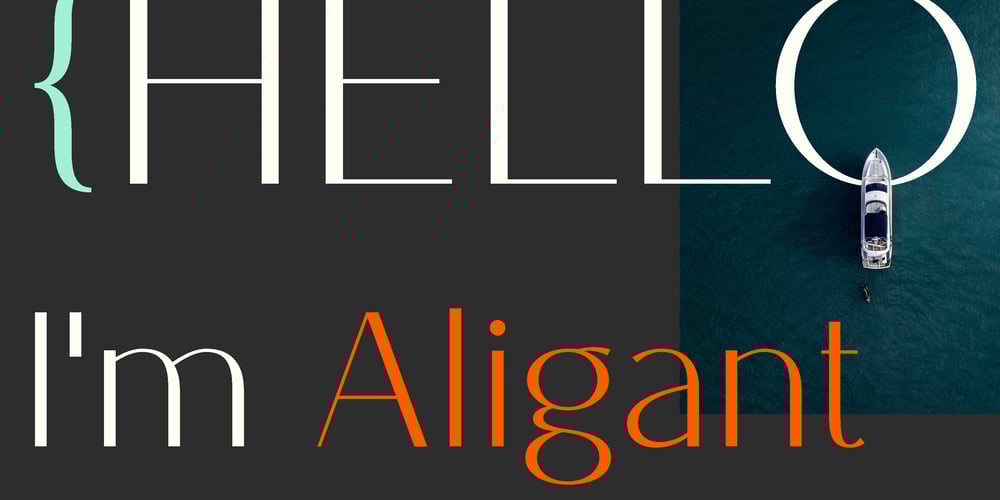
Aligant Font Family was designed by Malgorzata Bartosik and published by Malgorzata Bartosik. Aligant contains 1 styles and family package options. Aligant is very fancy and rich sans serif typeface. It’s perfect for graphic design of luxury products – fashion, jewelry, cars, cosmetics, entertainment, food, furniture. It contains diacritics from Western, Central and South Eastern Europe. It can be used especially as a display, but also as a body text.Aligant is both classic and modern, so it can be widely used.